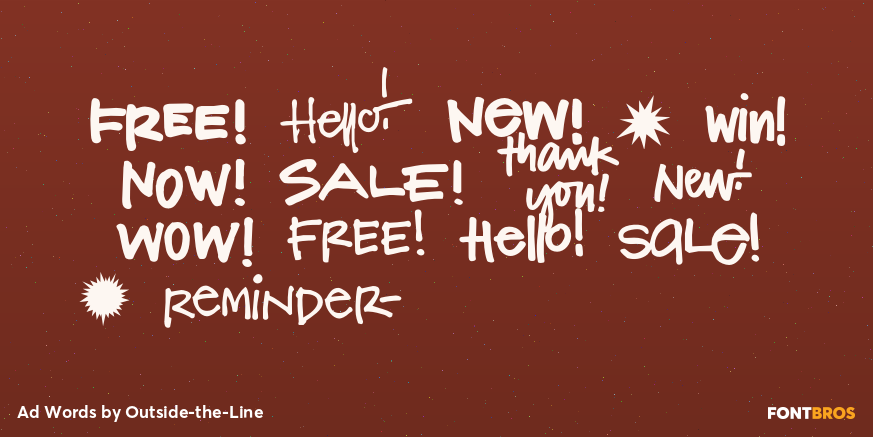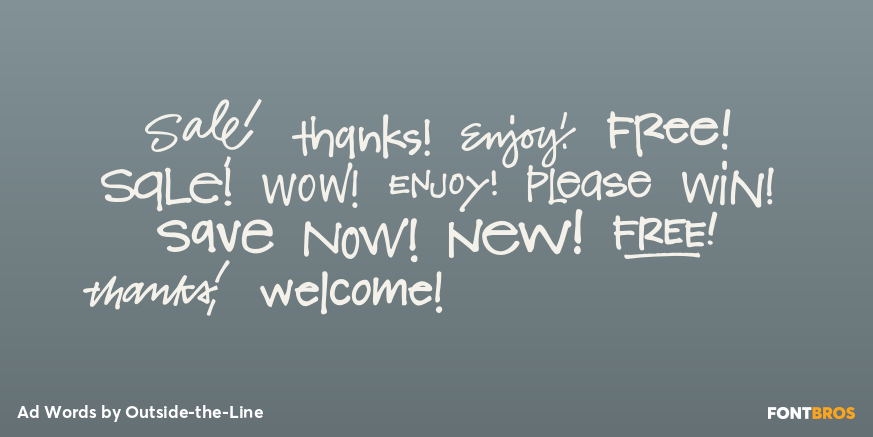
Ad Words
Font Family by Outside-the-Line
Just in time for the sale season! Ad Words is a font of words you would use if you did retail ads. Some words in script, some print, some bold, some not. Includes 2 starbursts; enlarge the starbursts and then reverse one of the words out of it.